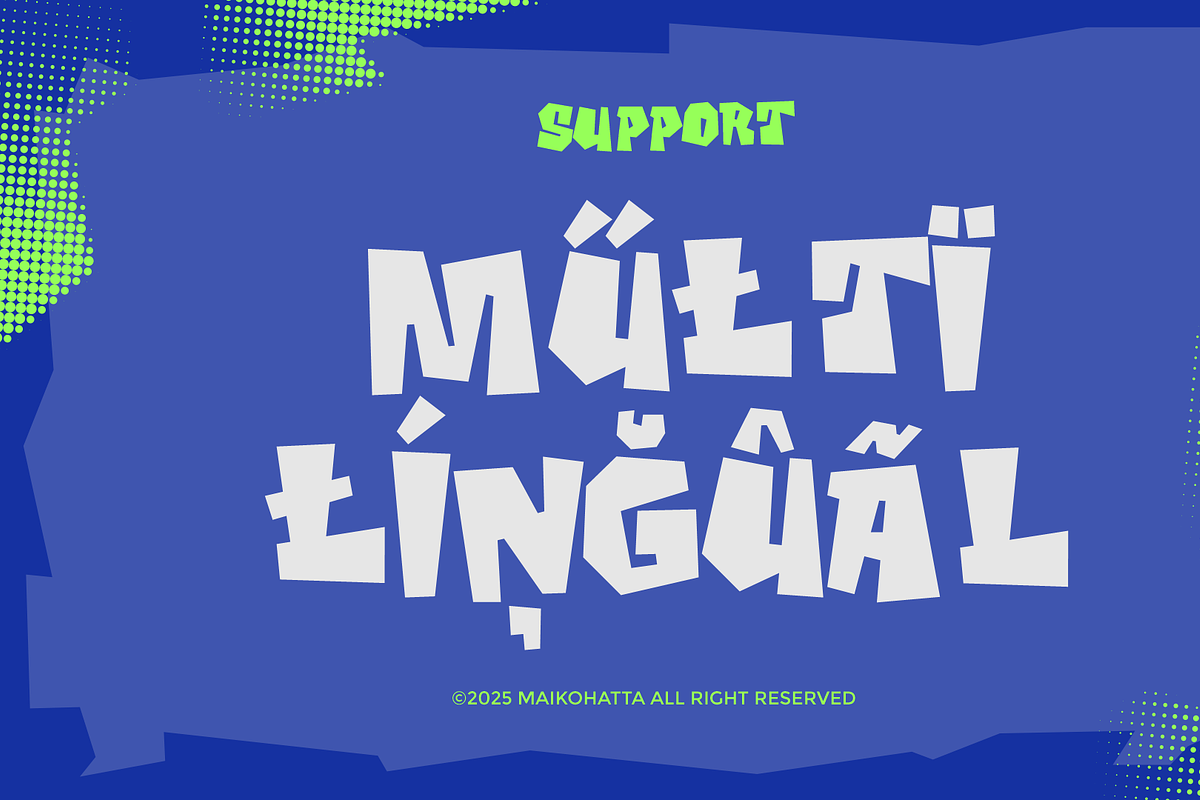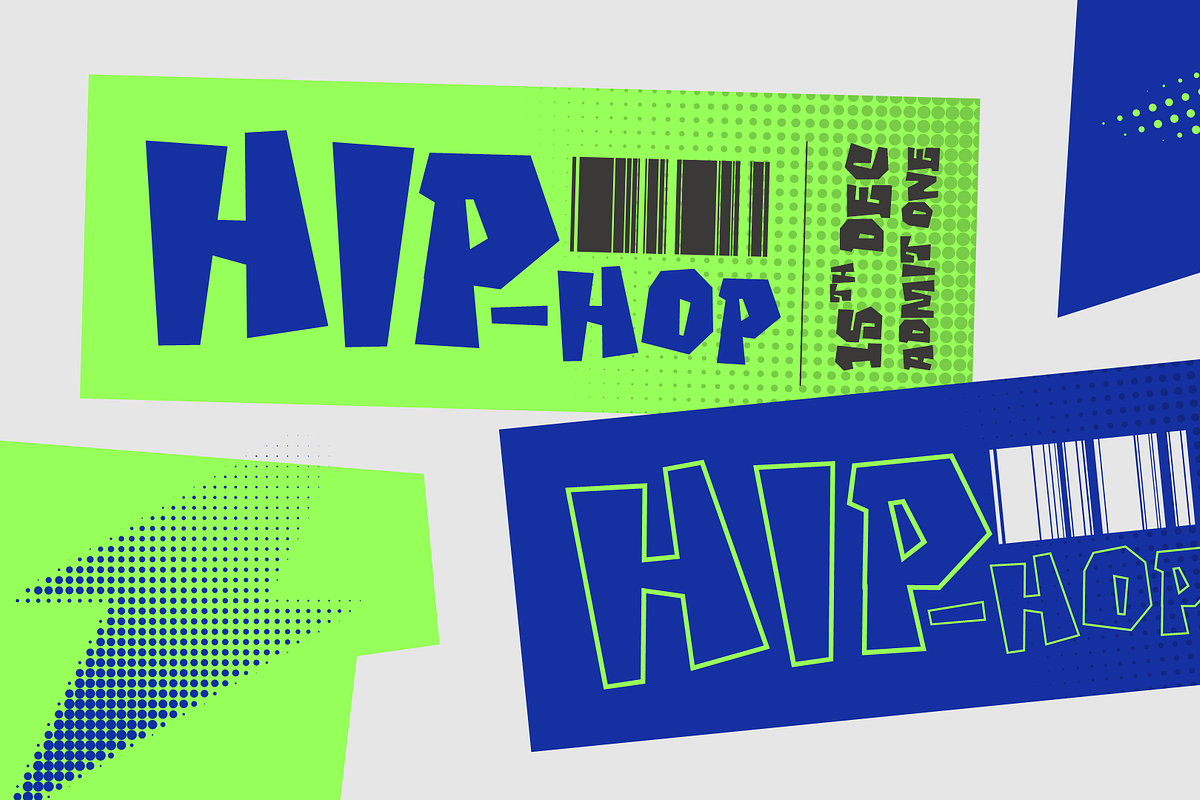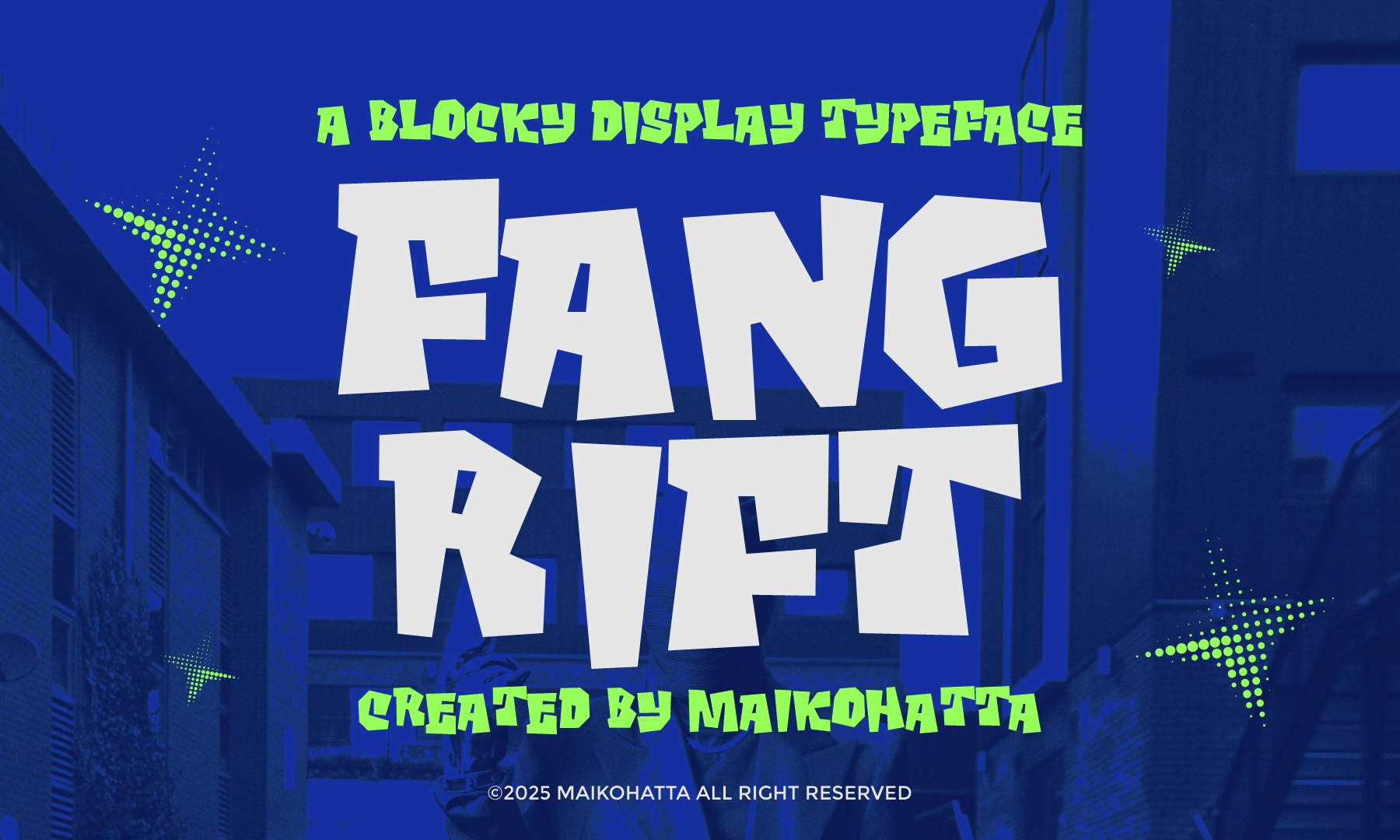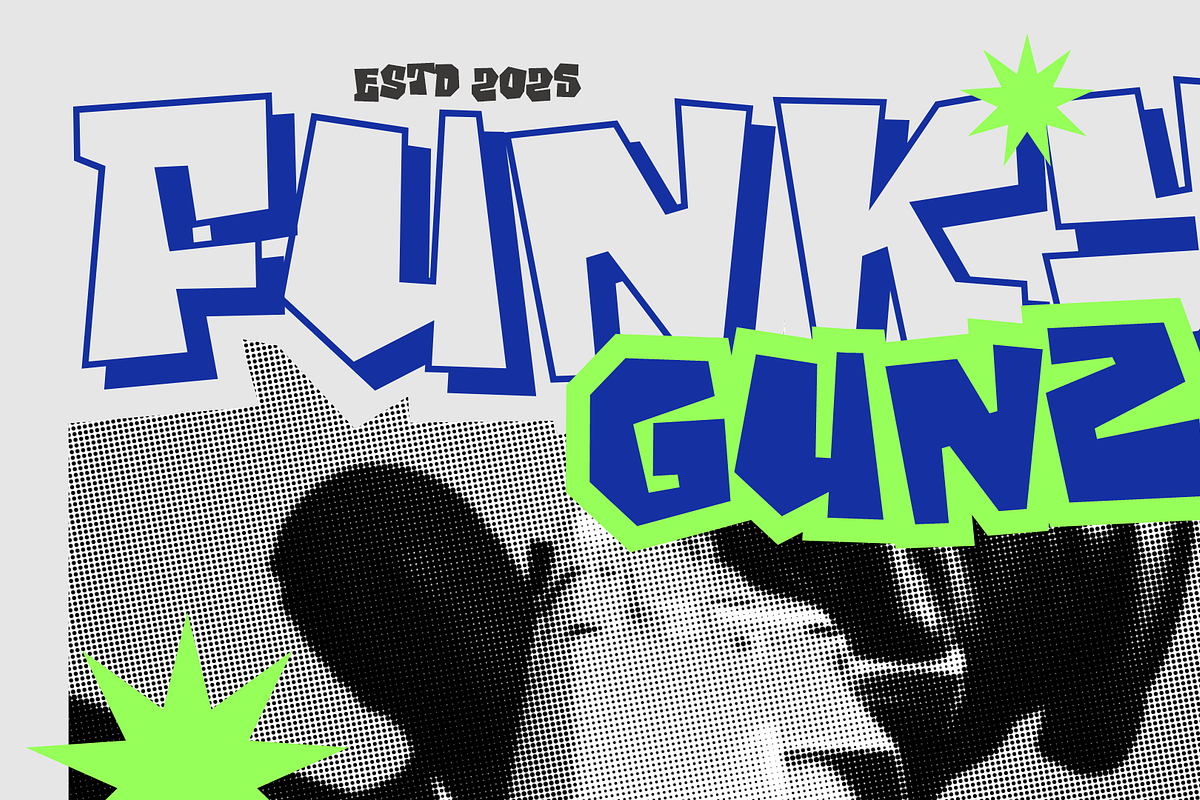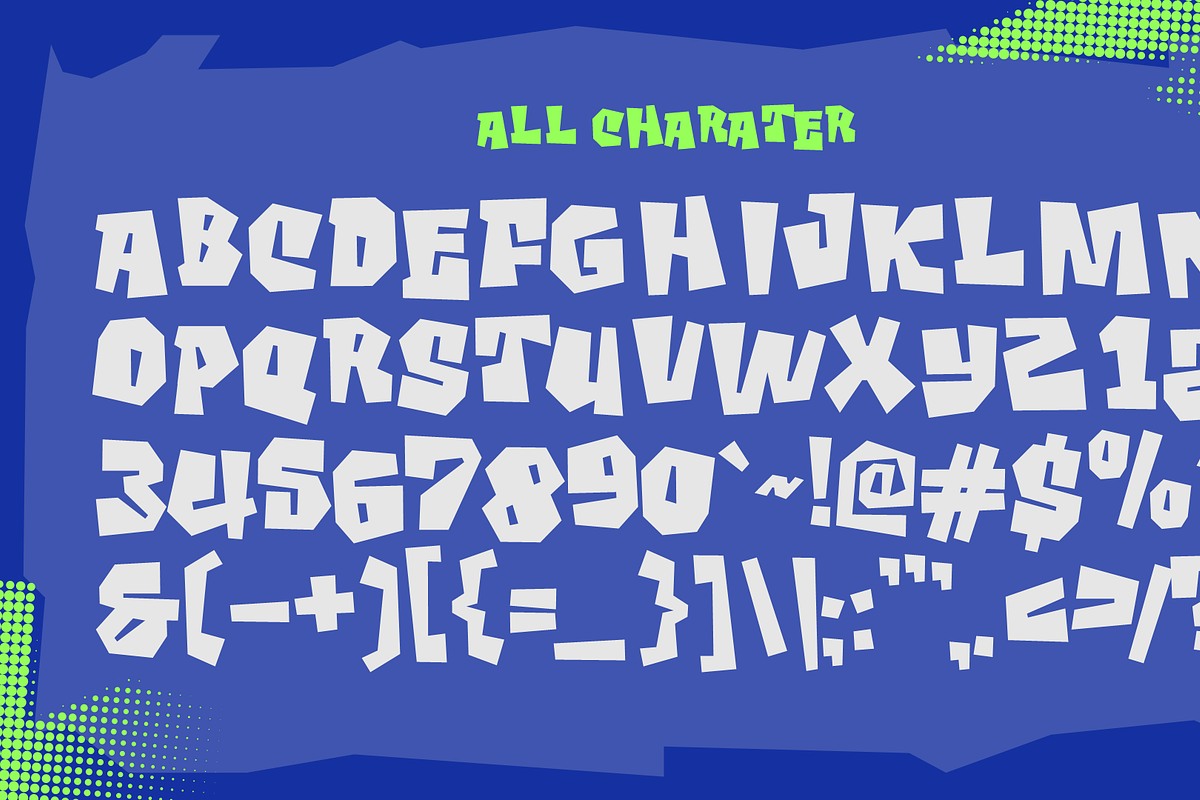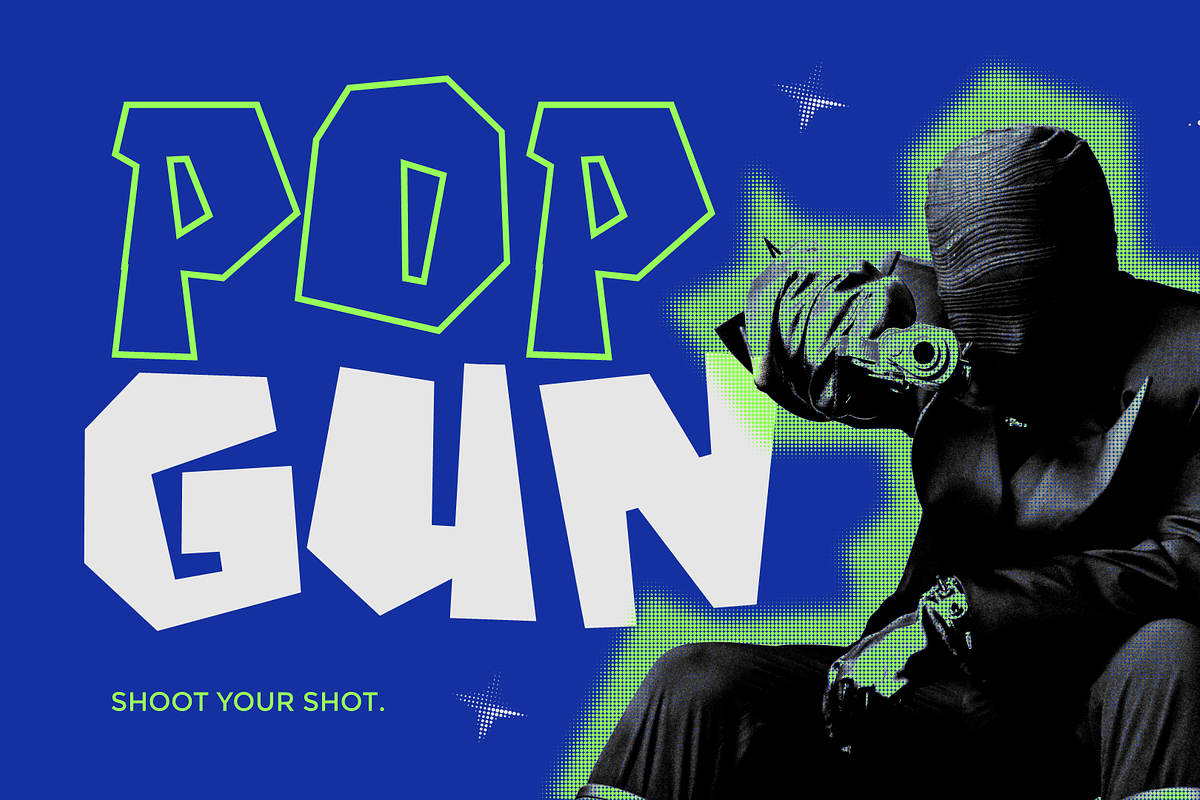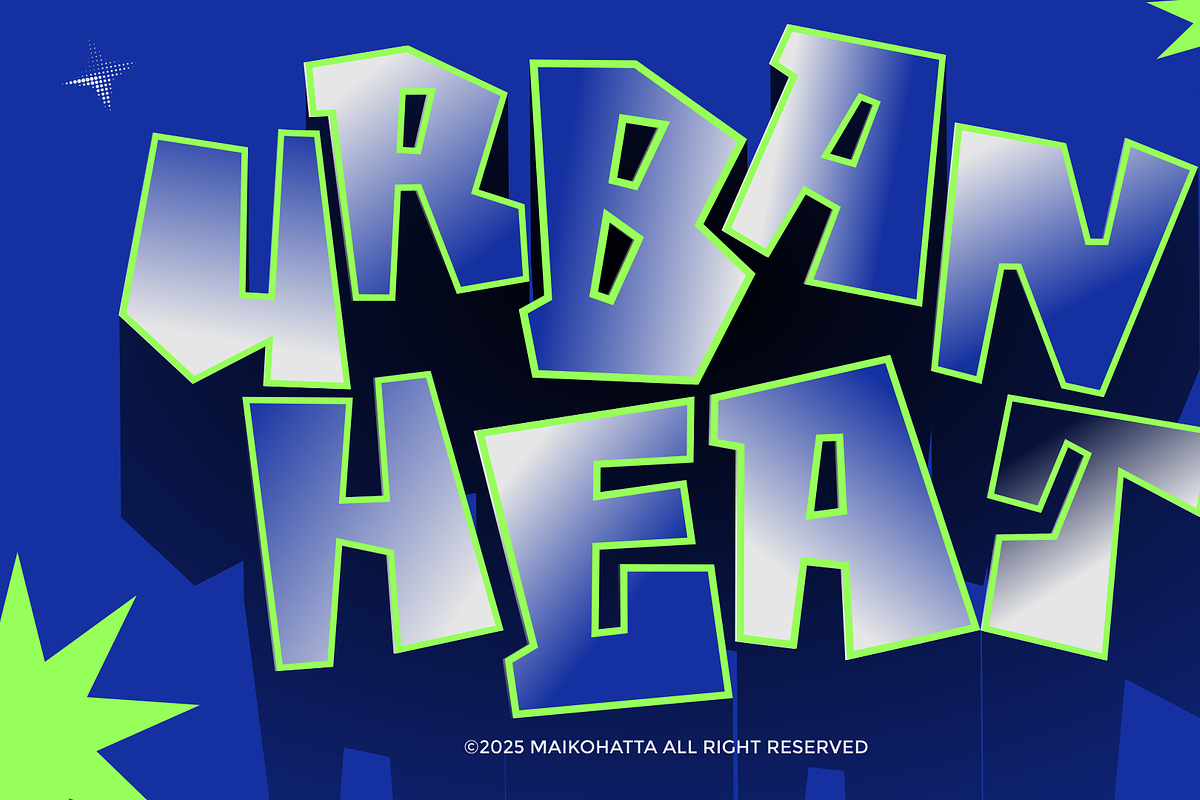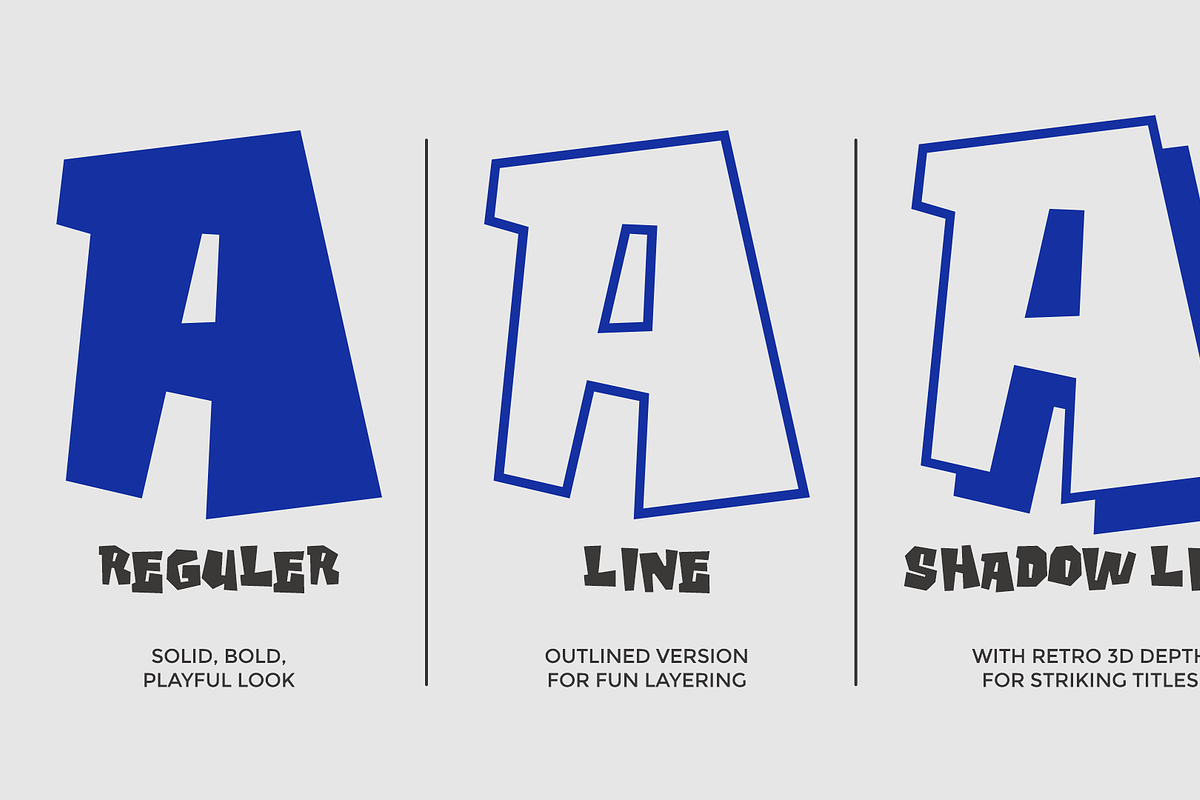
Fang Rift – Bold Blocky Display Font
Introducing our new product Fang Rift - Bold Blocky Display Font
Fang Rift is a bold and blocky display typeface that bursts with energy and attitude. Its chunky, uneven letterforms bring a sense of rebellion and street-style creativity, making it perfect for posters, games, album covers, or eye-catching headlines. The playful geometric edges give it a rugged, comic-inspired flair—balancing between edgy and fun. Whether used for modern urban designs or expressive creative projects, Fang Rift commands attention with its strong visual impact and unique personality.
Style Font
- Line
- Shadow Line